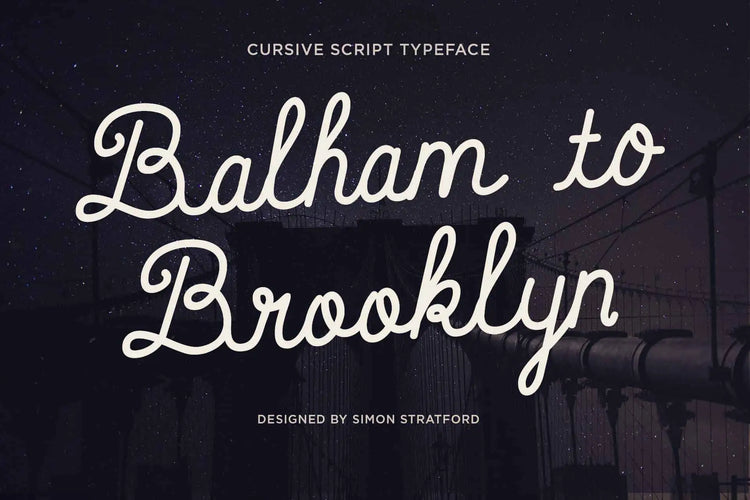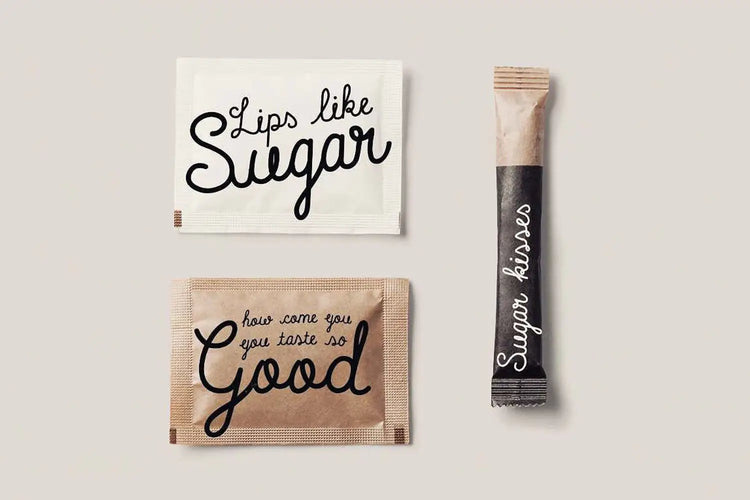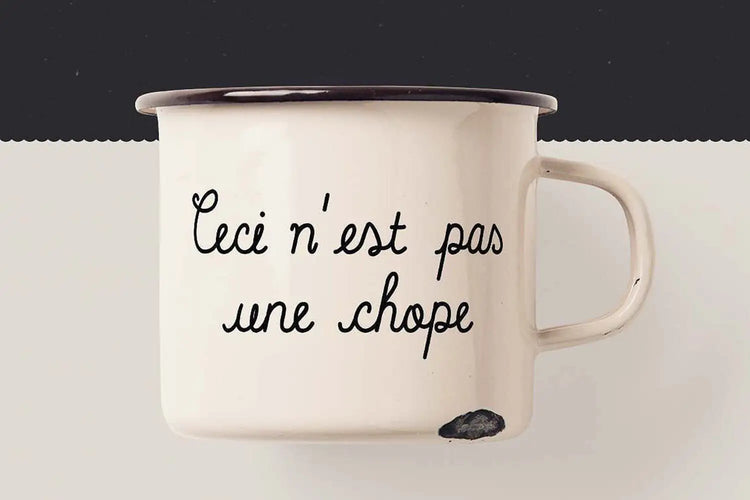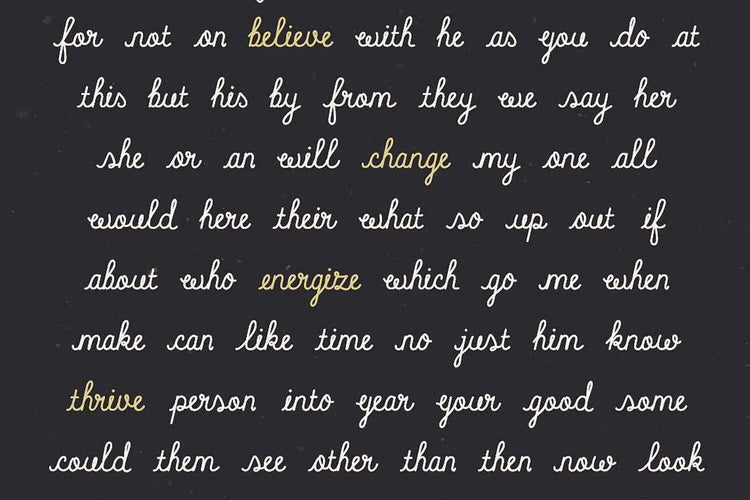
Balham to Brooklyn — Retro Vintage Script Font
About Balham to Brooklyn
Balham to Brooklyn font—This is my take on that cutesy, nostalgic slice of America. It’s Krispy Kreme sweet and more than a touch retro.
It’s ideally suited for packaging, logo work, branding, occasions, invites, posters and anything creative.
I called it Balham to Brooklyn. I got the name from a Turin Breaks song. It seemed like the perfect fit. The two places are so contrasting, Balham, London to Brooklyn, USA. Also my favourite drinking hole was in Balham.
Balham to Brooklyn font is a monoline script font, so each letter is fully connected to the next to emulate hand-drawn letterforms. This is done by using contextual alternatives, an OpenType feature available in your design application.